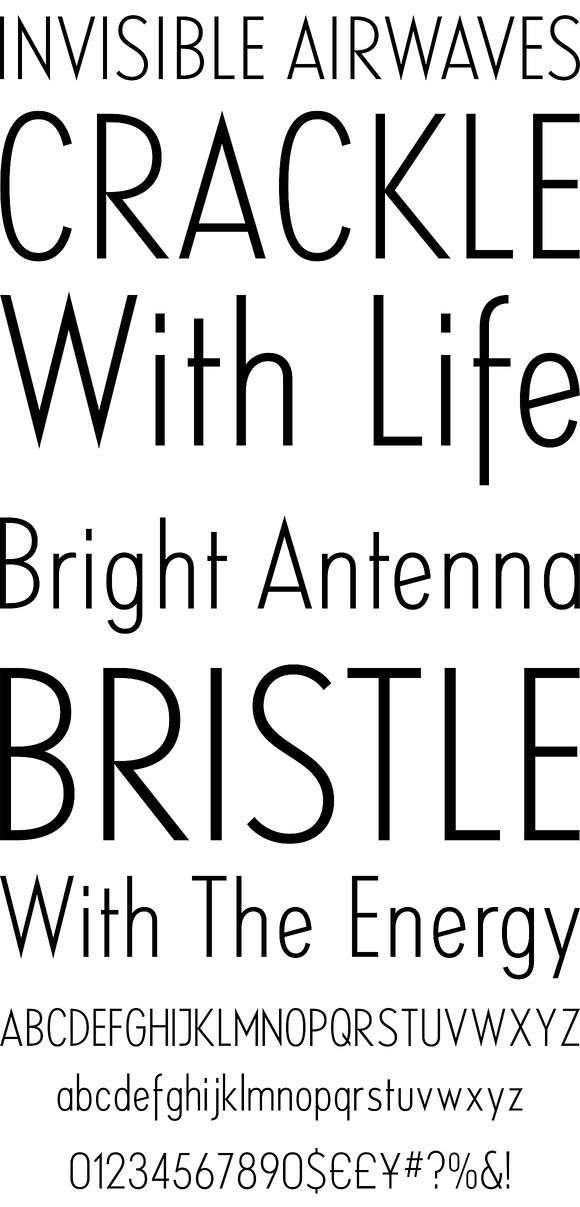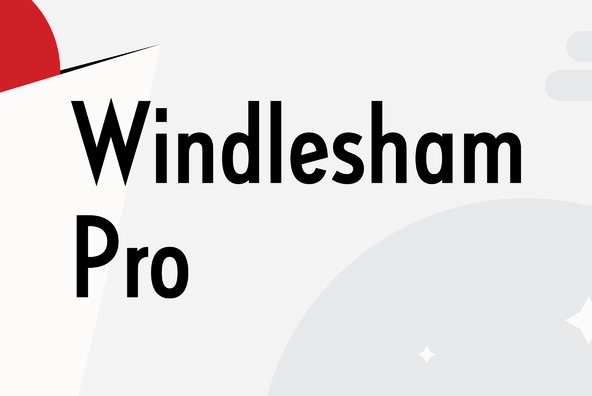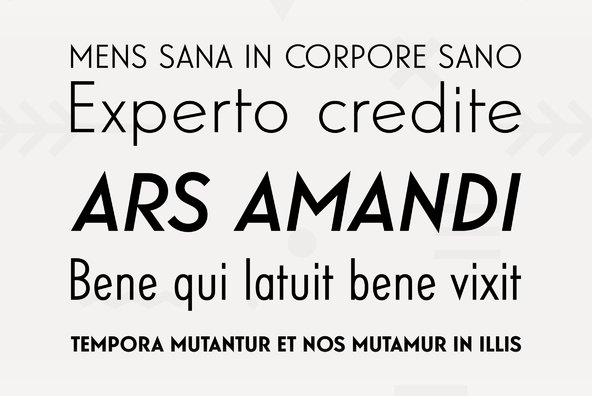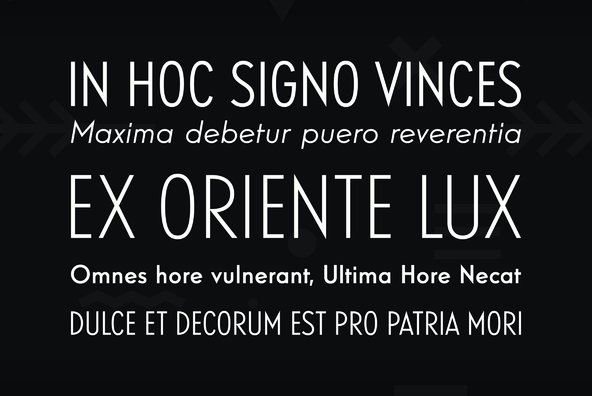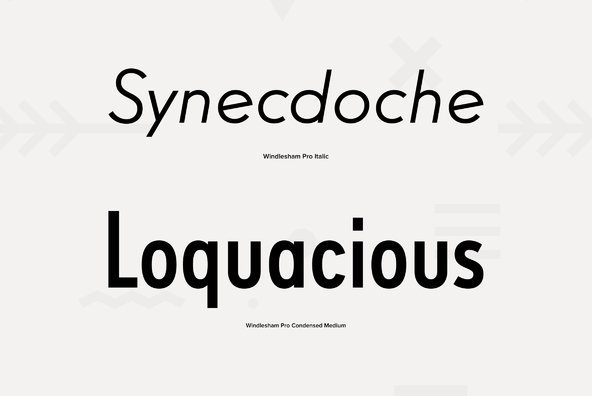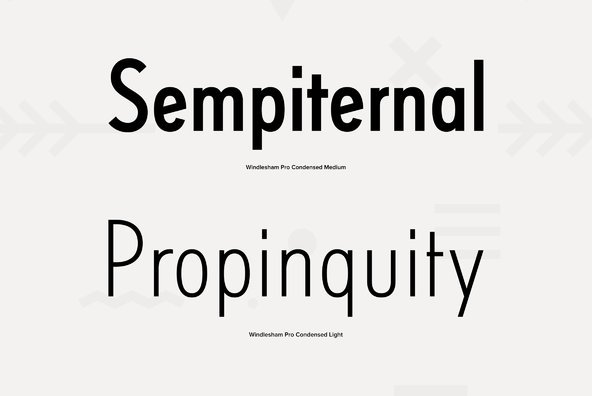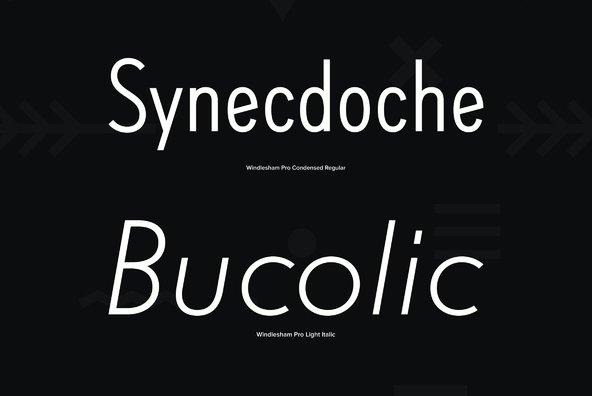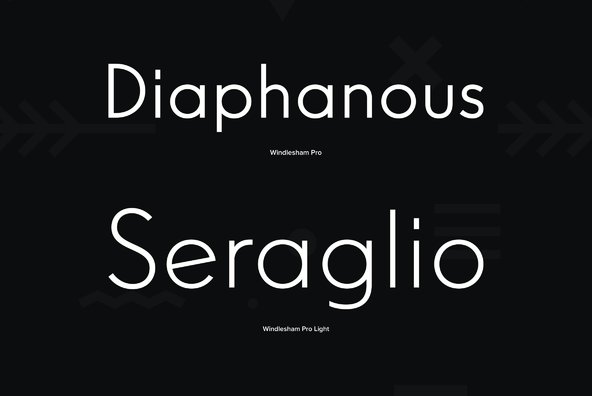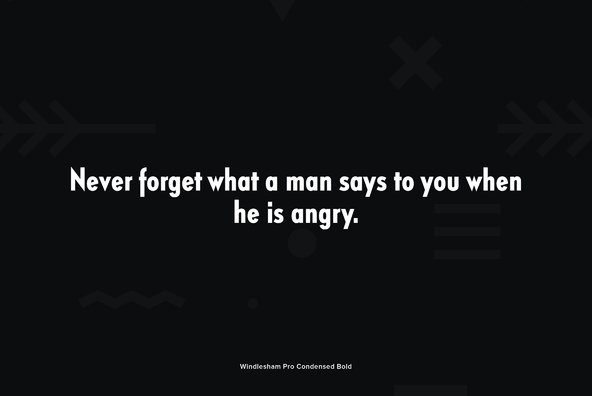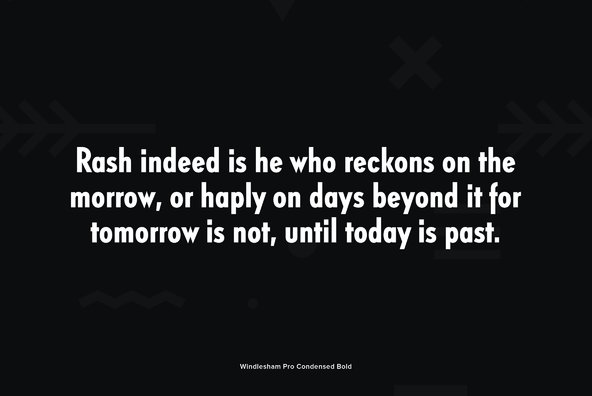
Designed by Steve Jackaman and Ashley Muir. Windlesham is a more traditional sans serif version of our Guildford typeface. Windlesham contains all the high-end features expected in a quality OpenType Pro font.